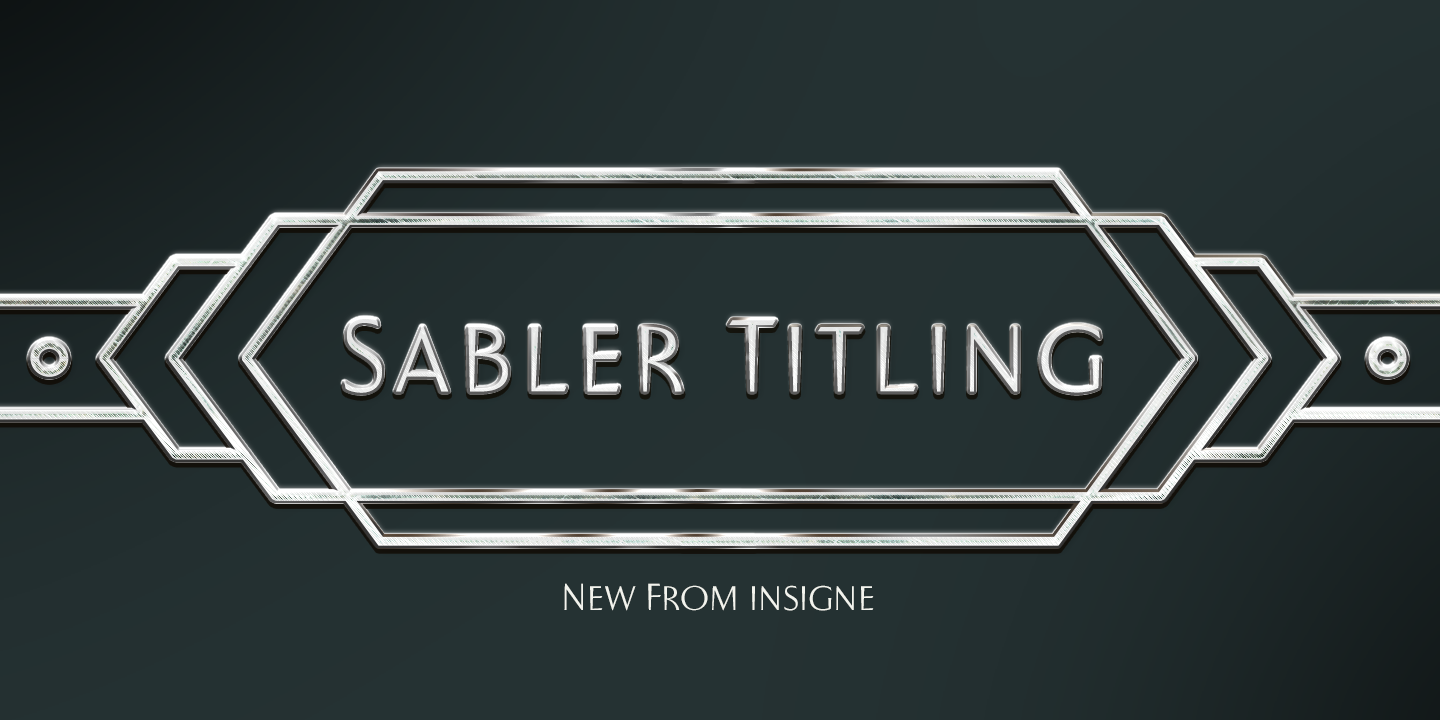
The Sabler Titling Font Free Download is a bold, elegant serif typeface perfect for headlines, editorial titles, luxury branding, book covers, and high-end packaging. Its sharp serifs and clean lines create a commanding and sophisticated presence.
What makes the Sabler Titling Font so exciting is its ability to combine classic serif elegance with modern readability. This font elevates your titles with a timeless style that demands attention.
The Sabler Titling Font family includes Regular, Italic, and Bold weights, offering designers the versatility to craft impactful typographic hierarchies.